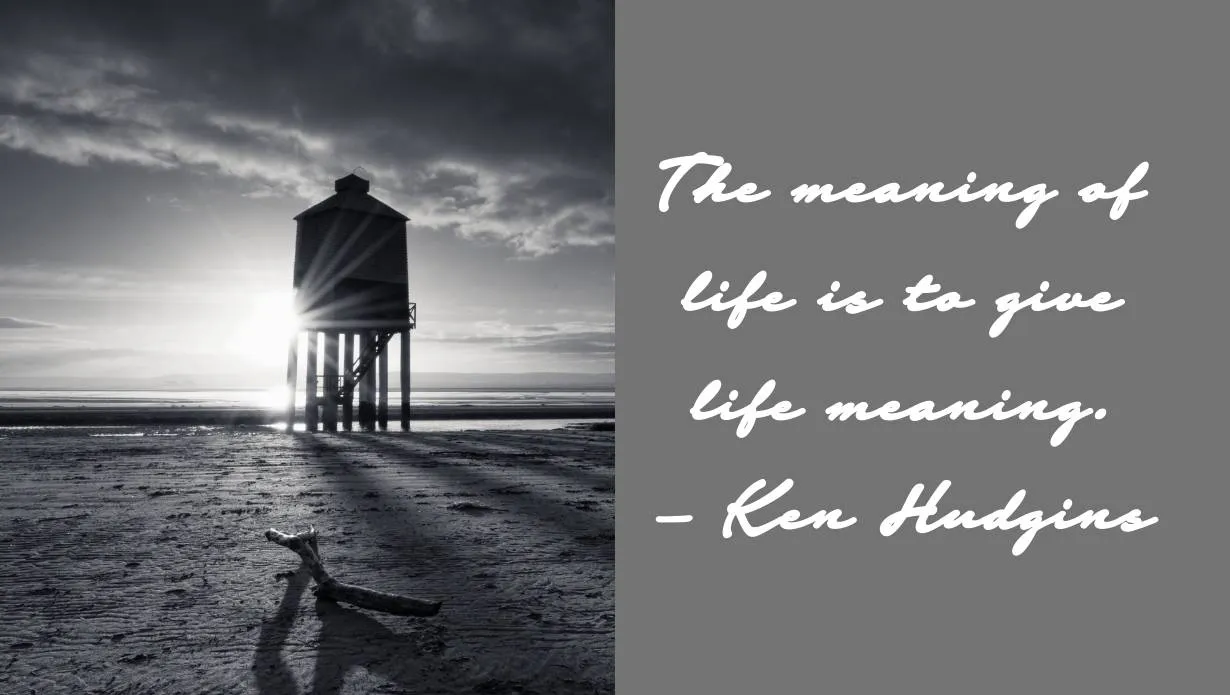
Today, we introduce Notera Font, It is a script typeface created by Swedish type designer Mans Greback. The typeface was inspired by the work of early 20th century Swiss typographer Ernst Schneidler. This typeface is characterized by its strong vertical stress, clean lines, and high contrast between thick and thin strokes. It is specified by the CSS Family.
It is a great choice for headlines, logos, and short texts. It works well in both digital and print contexts.
Notera Font Family
If you’re looking for a modern, stylish typeface with a vintage feel, Notera is a great option. It is best for Tattoo designs. For more features its similar Stay Outside Font is available.
| Name | Notera Font |
| Designer | Mans Greback |